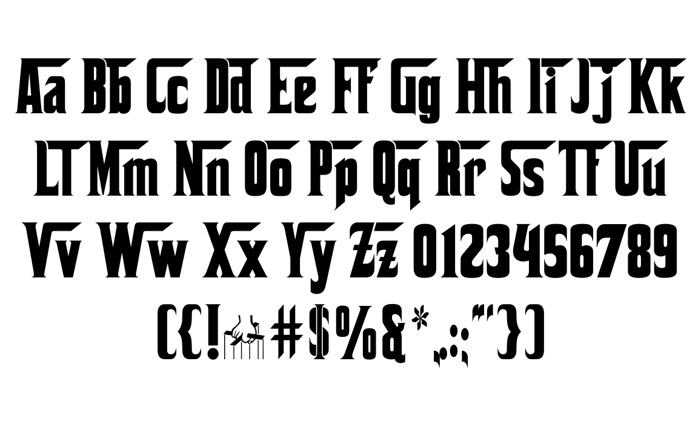
Corleone Font
The Corleone font resembles the style of lettering used in
the Godfather movies. The original logo from the first movie
was too tightly spaced and didn't work well as a font but the
Godfather logo from the third movie was better spaced and worked
well even at smaller type sizes.
The first Corleone font has an upper case with an extended top line
while the second font Corleone Due has normal upper case letters
There are three ligatures or custom letter combinations in the fonts,
And last there is the hand holding the puppet strings symbol located on